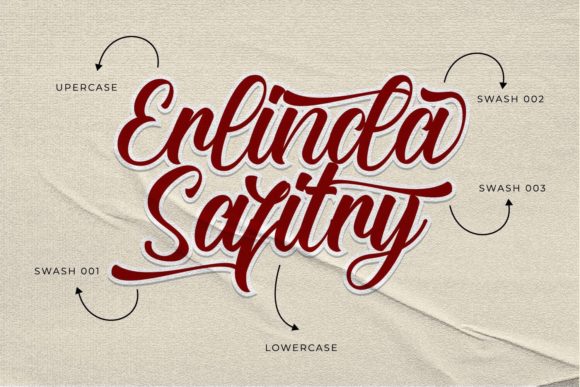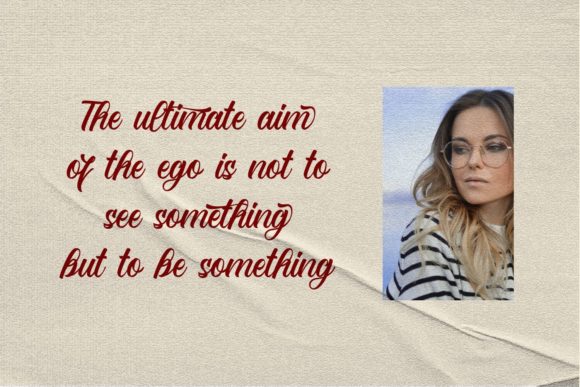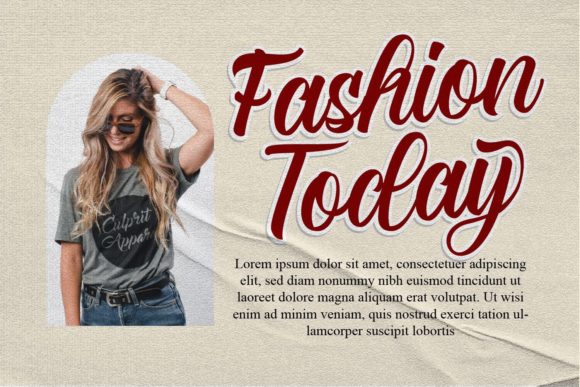
About Erlinda Safitry Font
Erlinda Safitry feels equally charming and elegant. It looks stunning on wedding invitations, thank you cards, quotes, greeting cards, logos, business cards and more. This font is PUA encoded which means you can access all of the glyphs and swashes with ease!Â